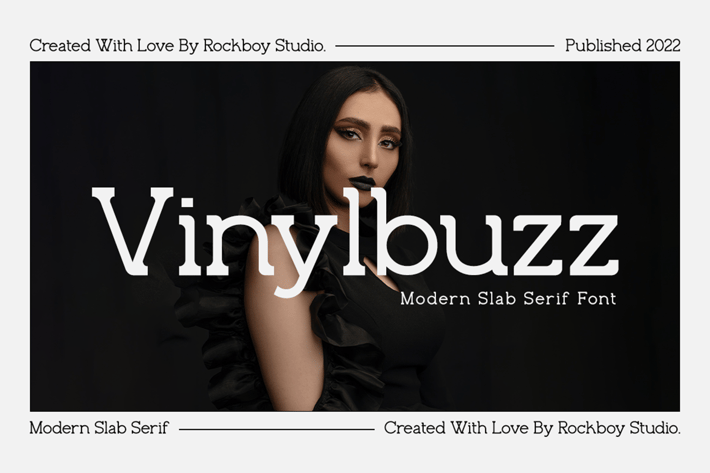
Vinylbuzz - Slab Serif Font
Vinylbuzz is fresh slab serif font. It can easily be matched to an incredibly large set of projects, so add it to your creative ideas and notice how it makes them stand out!